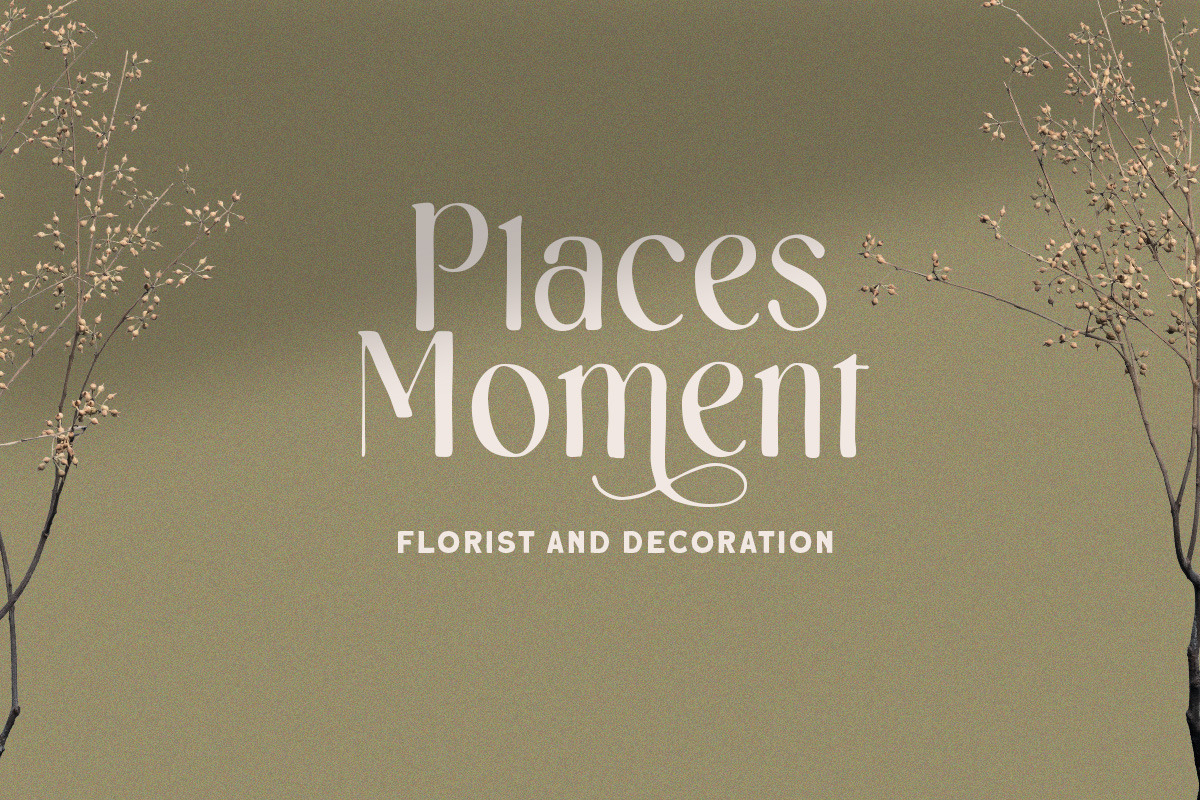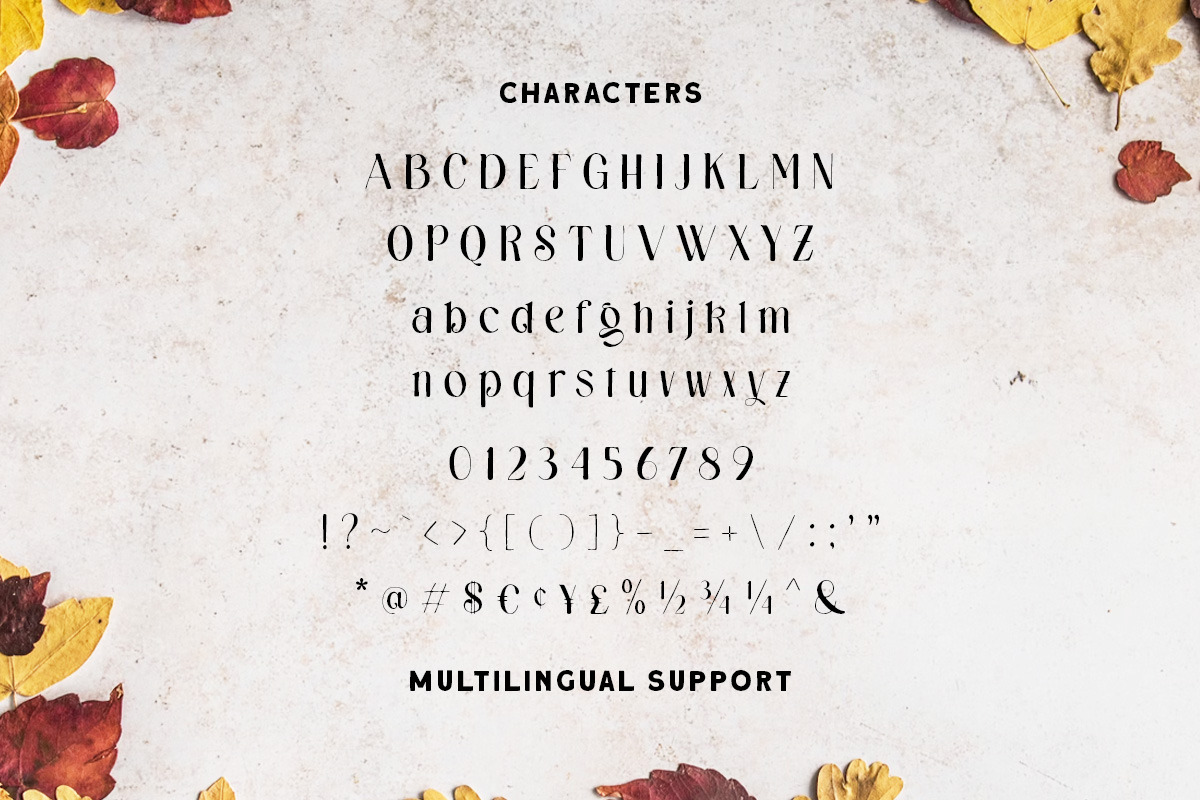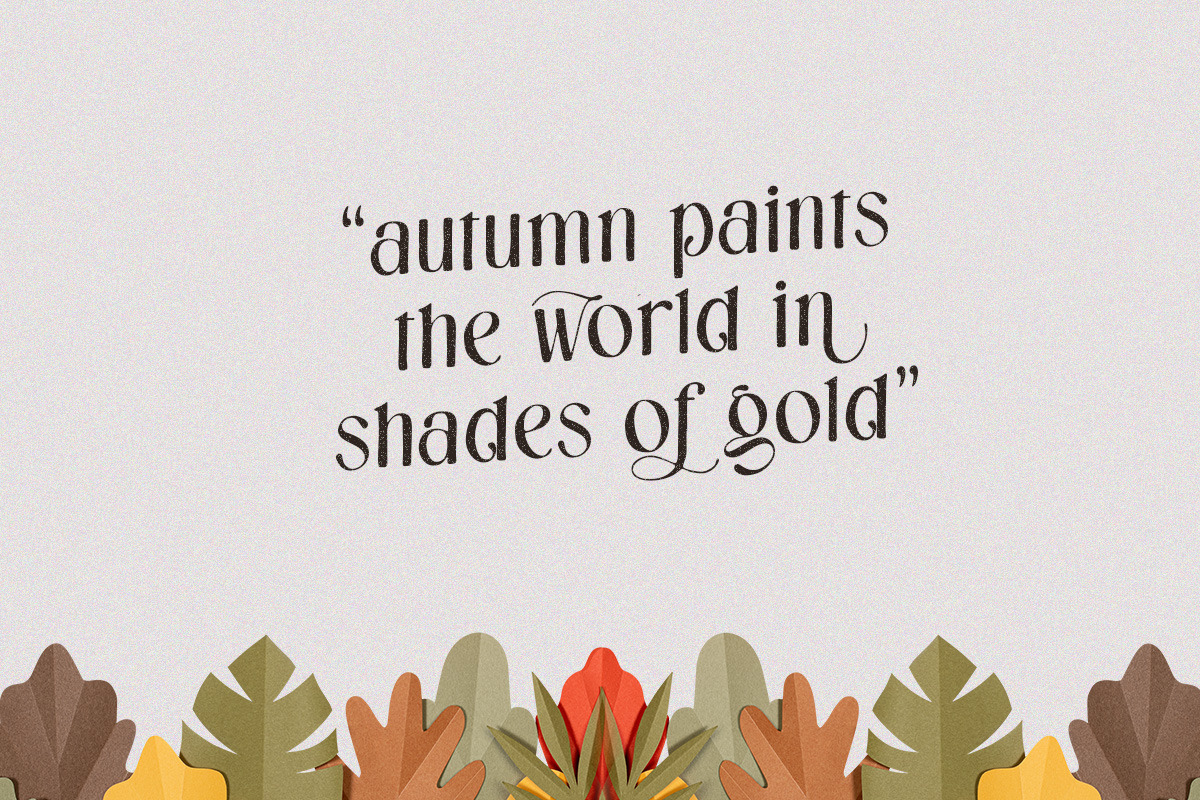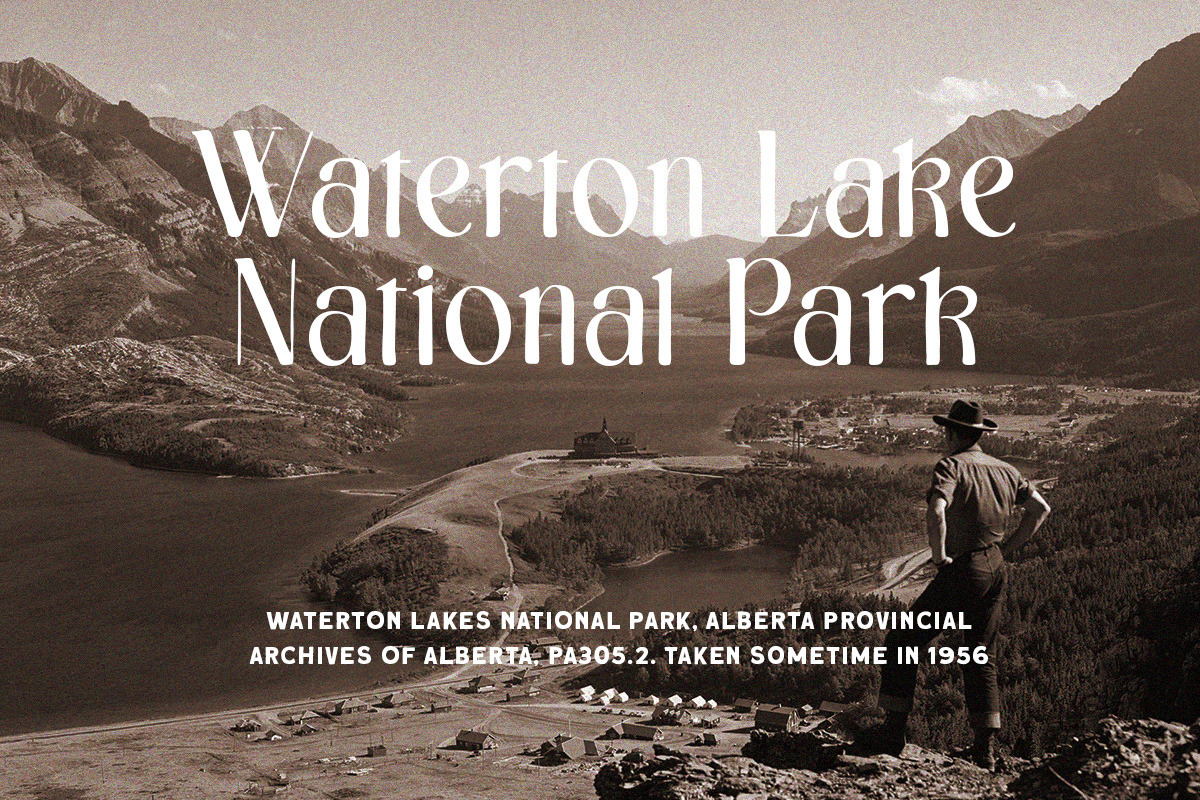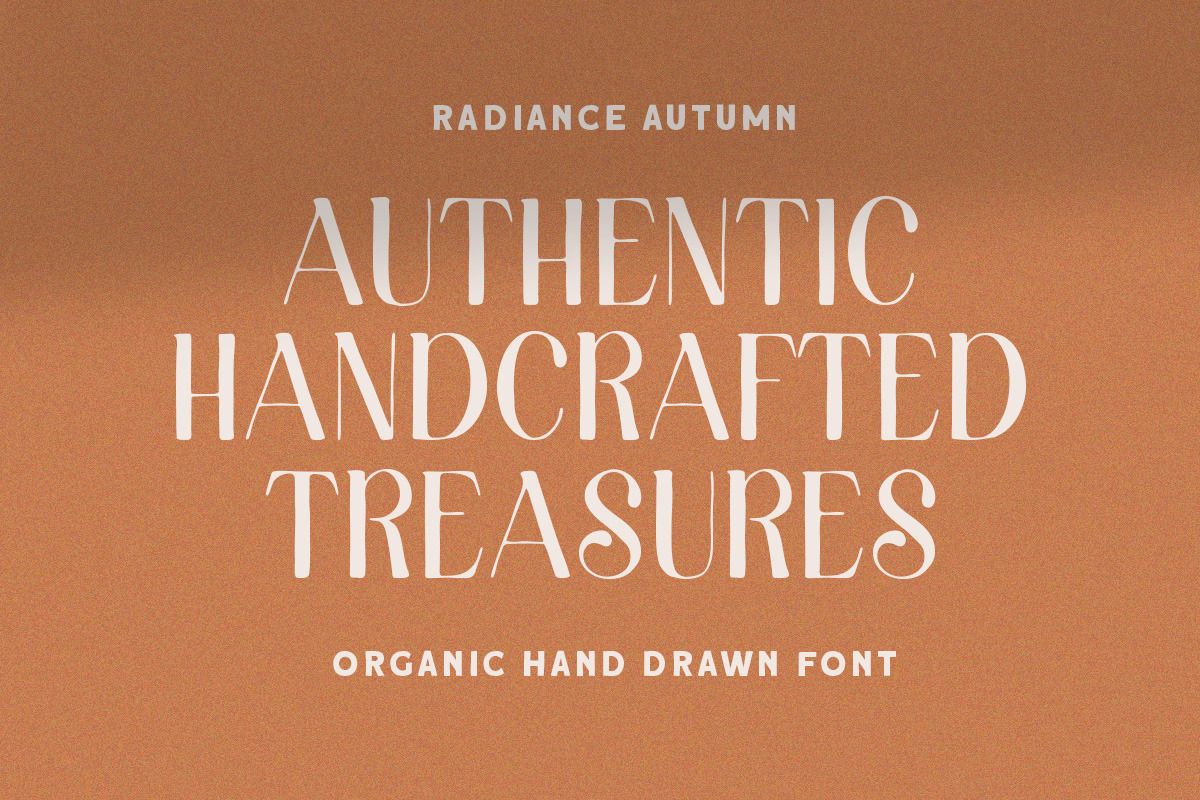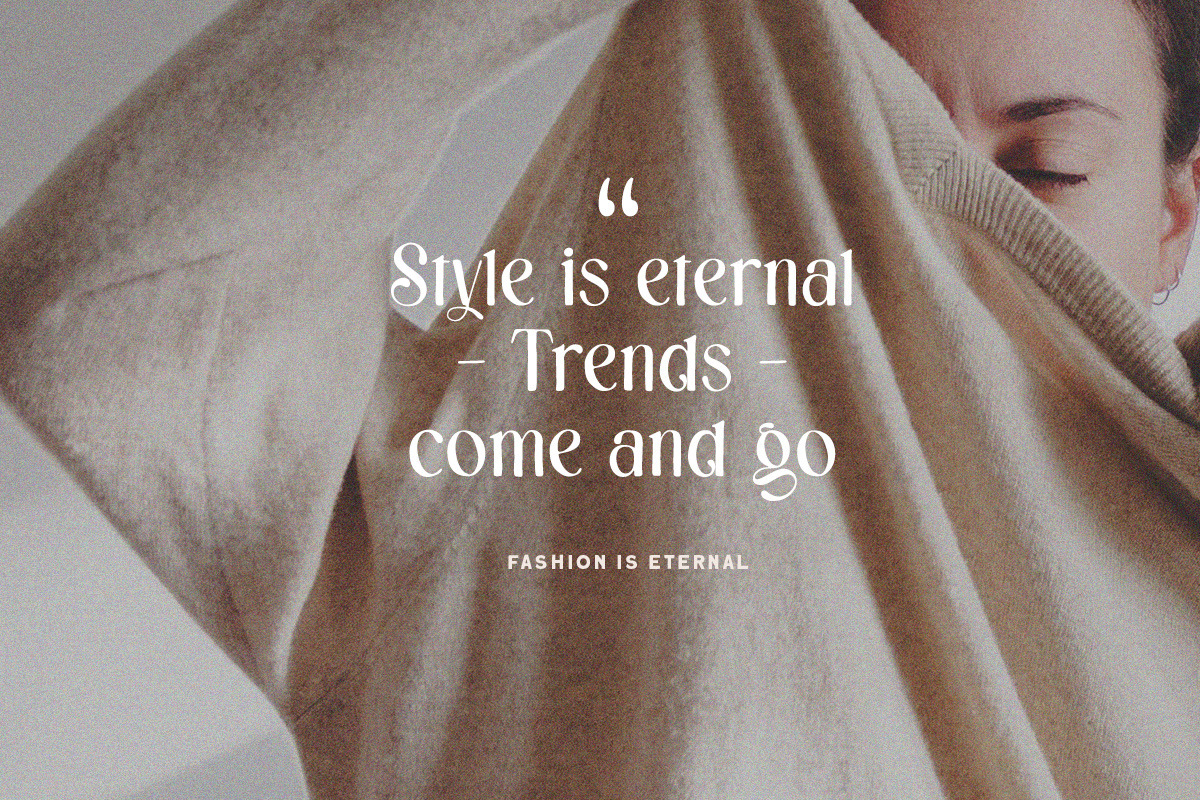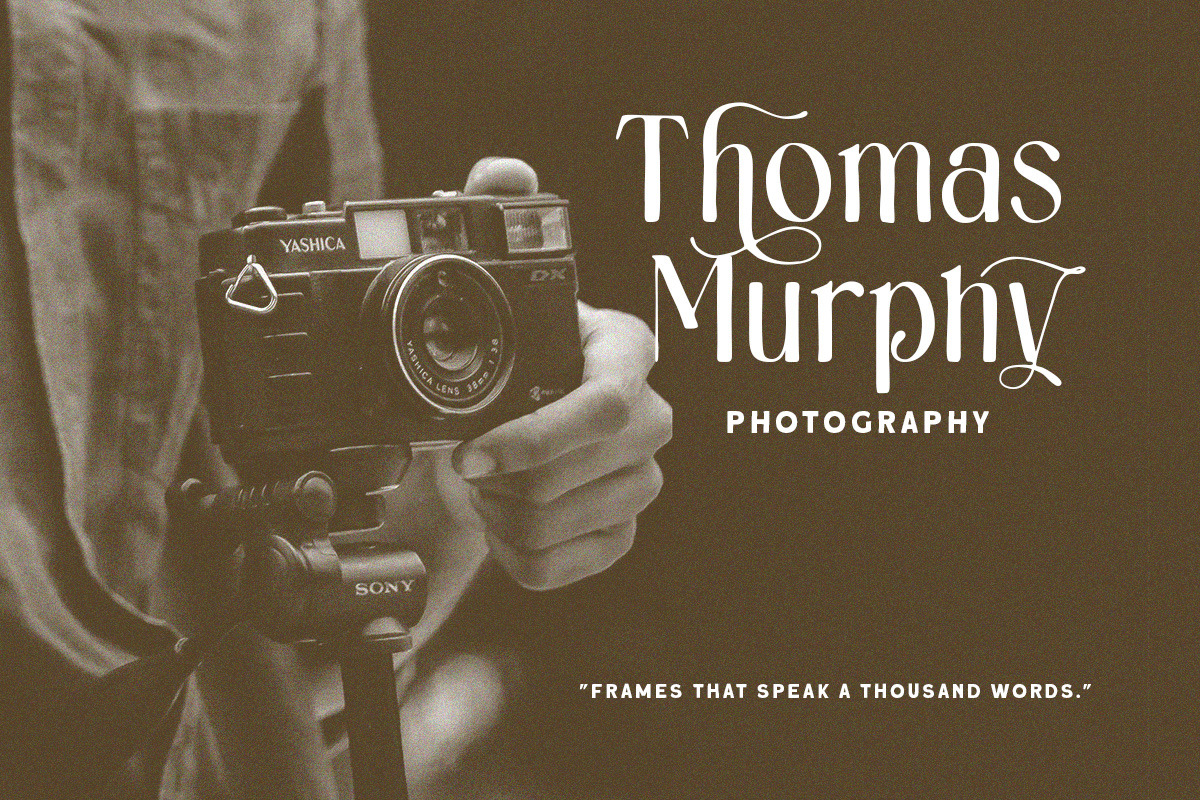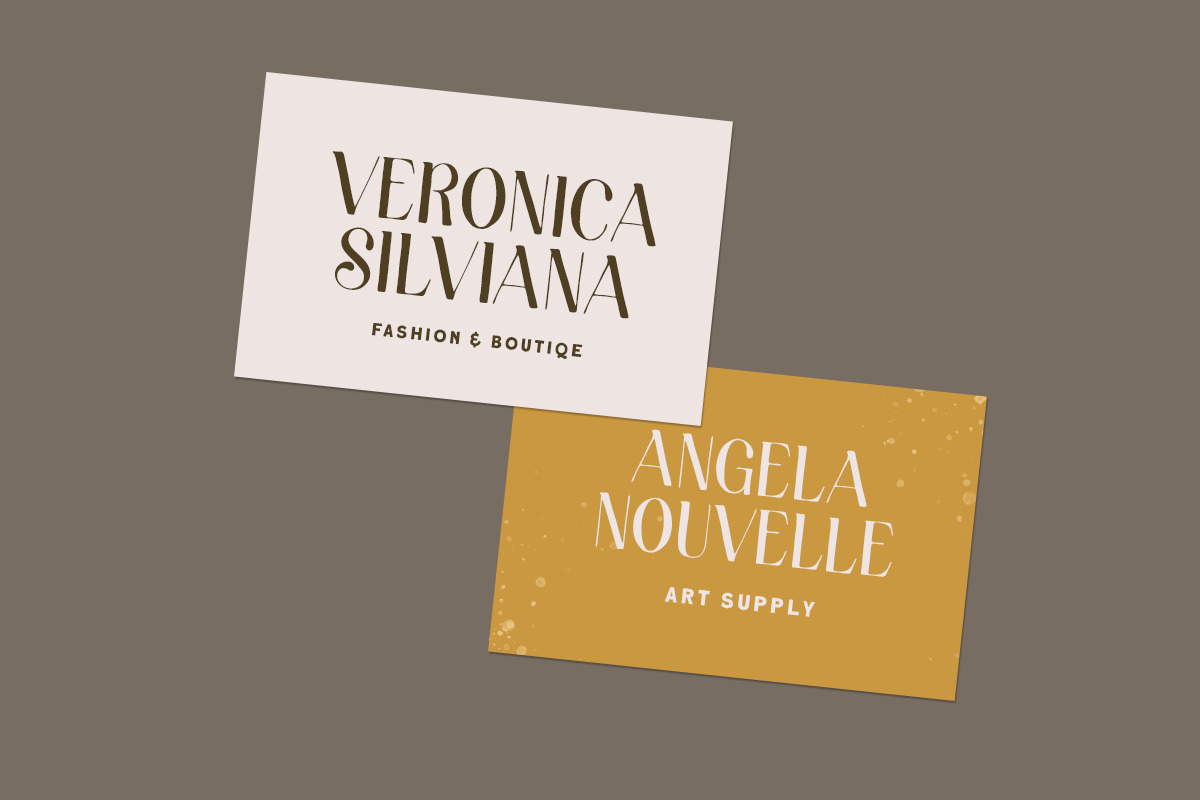
Radiance Autumn -Organic hand Drawn
Radiance Autumn is organic hand drawn with stylish style. This type of font perfectly made to be applied especially in cartoon or child theme which is need a standout font, and the other various formal forms such as invitations, labels, logos, magazines, books, greeting / wedding cards, packaging, fashion, make up, stationery, novels, labels or any type of advertising purpose.